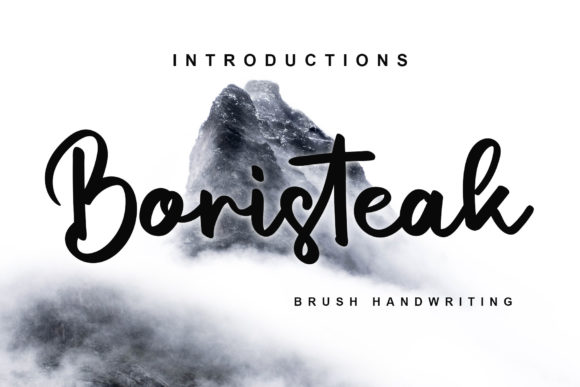
Introducing Boristeak Font: The Epitome of Elegance and Sophistication
In the realm of typography, few fonts manage to convey the essence of luxury and refinement as effectively as Boristeak Font. This chic, elegant script font has been meticulously crafted to emanate sophistication, making it the perfect match for any project that demands a touch of class. Whether you’re a designer looking to elevate your brand’s visual identity or a crafter seeking to add a dash of elegance to your creations, Boristeak Font is sure to exceed your expectations.
The Distinctive Features of Boristeak Font
Boristeak Font boasts a range of distinctive features that set it apart from other script fonts. Its stylish alternates and ligatures are designed to add a level of refinement and poise to your text, making it ideal for use in high-end branding, packaging, and advertising projects. The font’s elegant strokes and carefully crafted letterforms exude a sense of sophistication, while its versatility ensures that it can be used in a wide range of applications.
What Makes Boristeak Font So Special?
- Sophisticated Design: Boristeak Font features a sophisticated design that is perfect for projects that require a touch of elegance. Its refined letterforms and stylish alternates make it an excellent choice for use in luxury branding, high-end packaging, and advertising.
- Stylish Alternates and Ligatures: The font’s stylish alternates and ligatures add a level of refinement and poise to your text, making it perfect for use in creative projects that demand a high level of elegance.
- Versatility: Boristeak Font is incredibly versatile, making it suitable for use in a wide range of applications, from branding and packaging to advertising and digital media.
- Ease of Use: The font is easy to use and can be easily integrated into your design workflow, making it perfect for designers and crafters of all skill levels.
How to Use Boristeak Font in Your Designs
Boristeak Font is incredibly easy to use and can be easily integrated into your design workflow. Here are a few tips for using the font in your designs:
- Pair it with a Sans-Serif Font: Pair Boristeak Font with a sans-serif font to create a striking contrast that adds visual interest to your design.
- Use it for Headings and Titles: Use Boristeak Font for headings and titles to add a touch of elegance and sophistication to your design.
- Experiment with Alternates and Ligatures: Experiment with the font’s stylish alternates and ligatures to add a level of refinement and poise to your text.
The Benefits of Using Boristeak Font
There are many benefits to using Boristeak Font in your designs. Here are a few:
- Instant Elegance: Boristeak Font adds an instant touch of elegance and sophistication to your design, making it perfect for projects that demand a high level of refinement.
- Versatility: The font’s versatility ensures that it can be used in a wide range of applications, from branding and packaging to advertising and digital media.
- Easy to Use: Boristeak Font is easy to use and can be easily integrated into your design workflow, making it perfect for designers and crafters of all skill levels.
In conclusion, Boristeak Font is a chic, refined script font that emanates sophistication and elegance. Its stylish alternates and ligatures make this font the perfect match for any project that demands a touch of class. Whether you’re a designer looking to elevate your brand’s visual identity or a crafter seeking to add a dash of elegance to your creations, Boristeak Font is sure to exceed your expectations. So why wait? Download Boristeak Font today and experience the power of elegant typography for yourself.